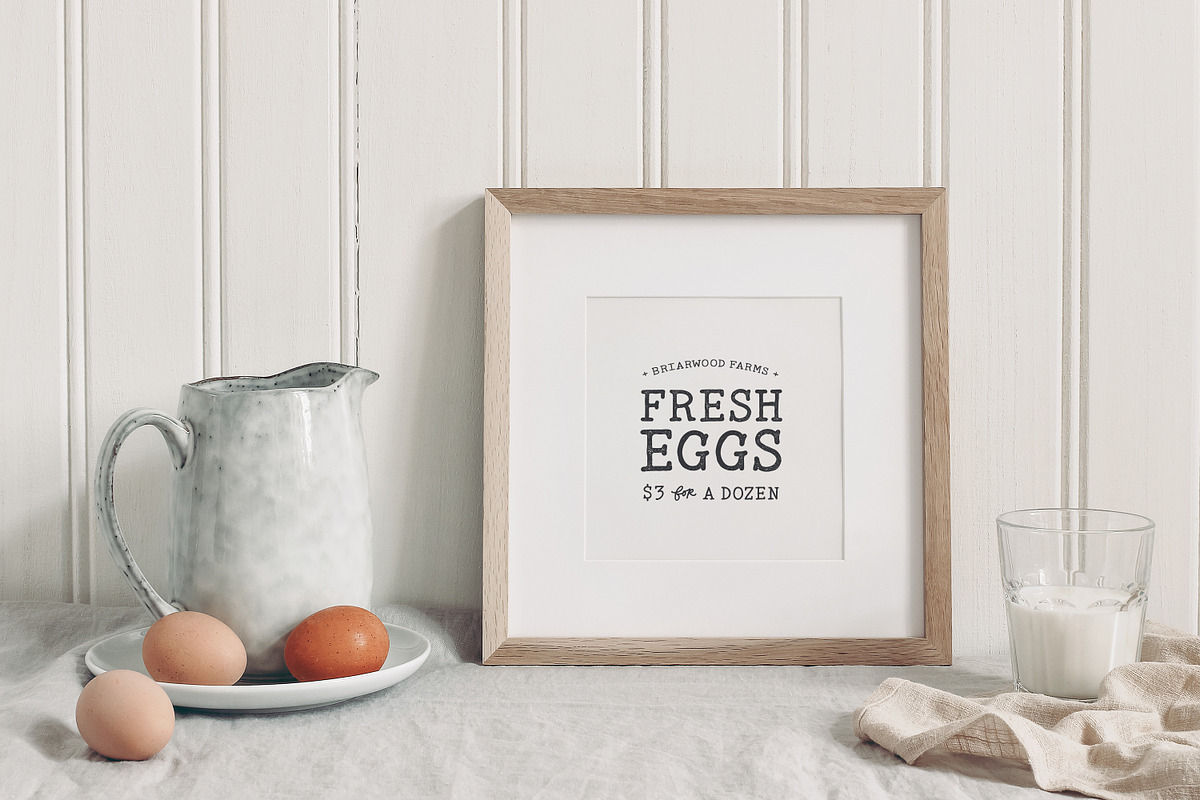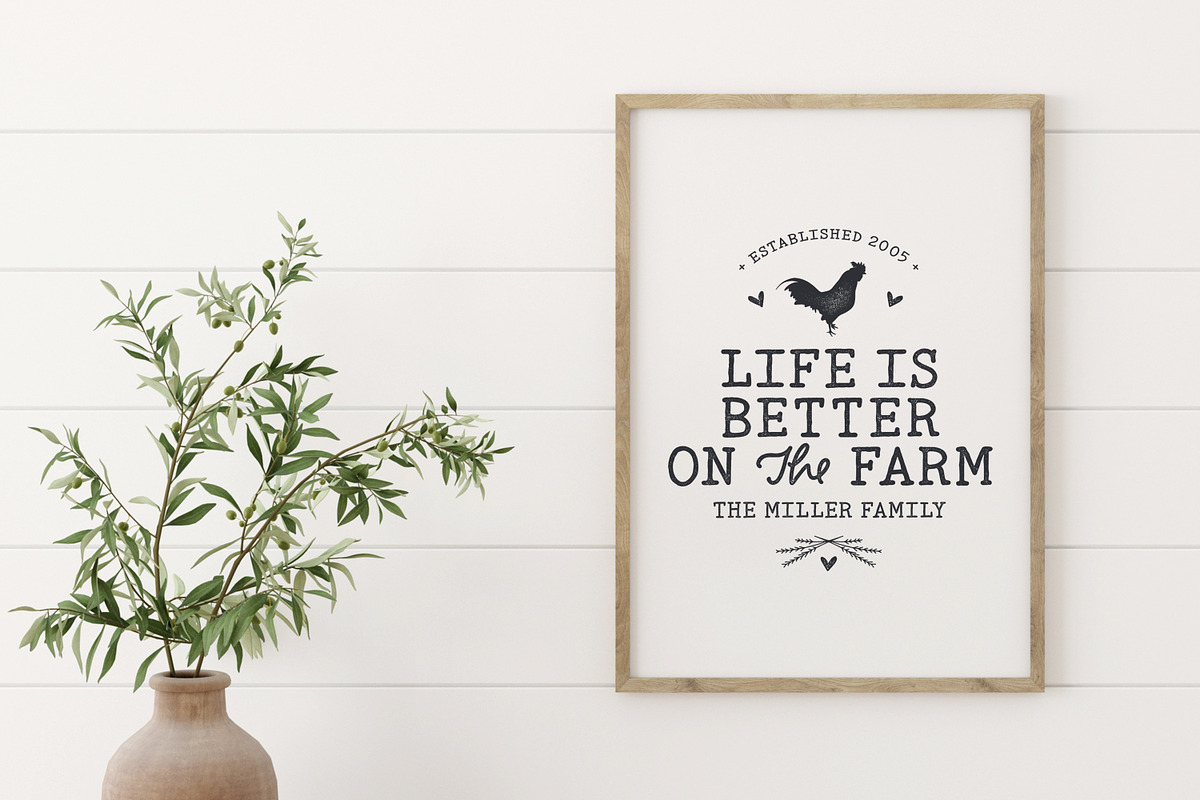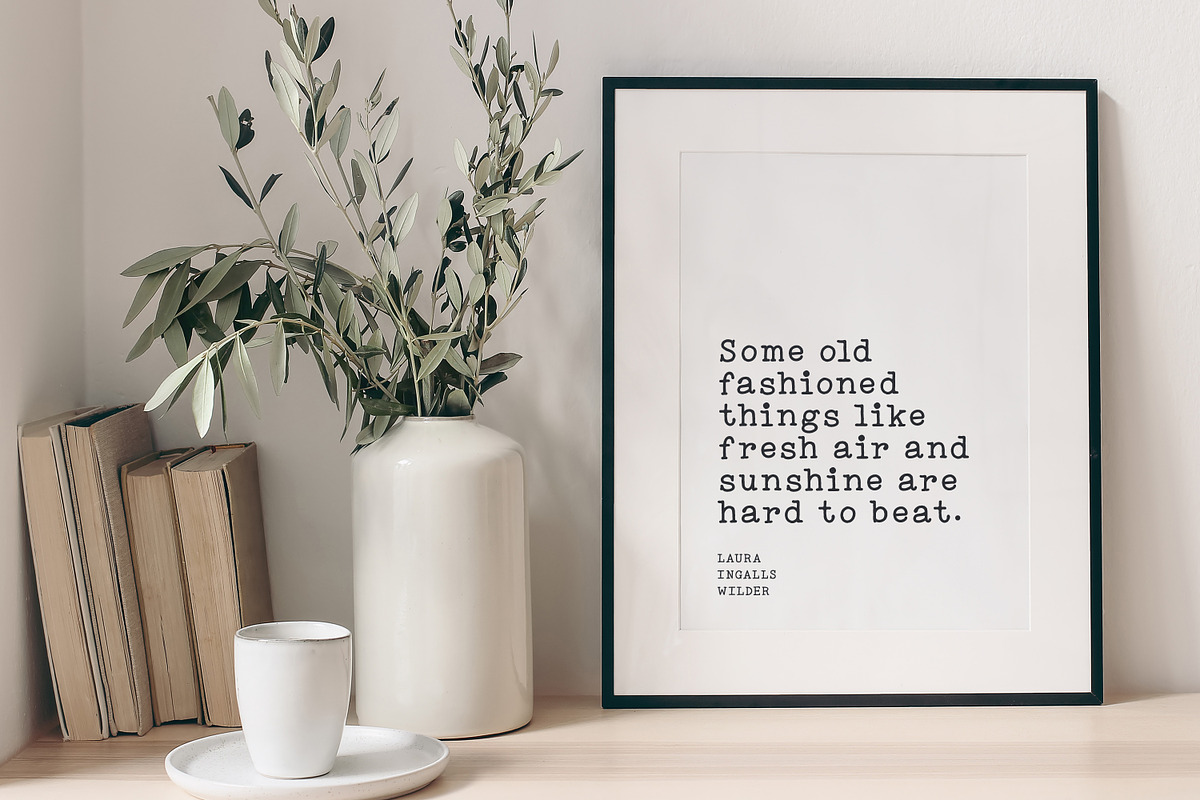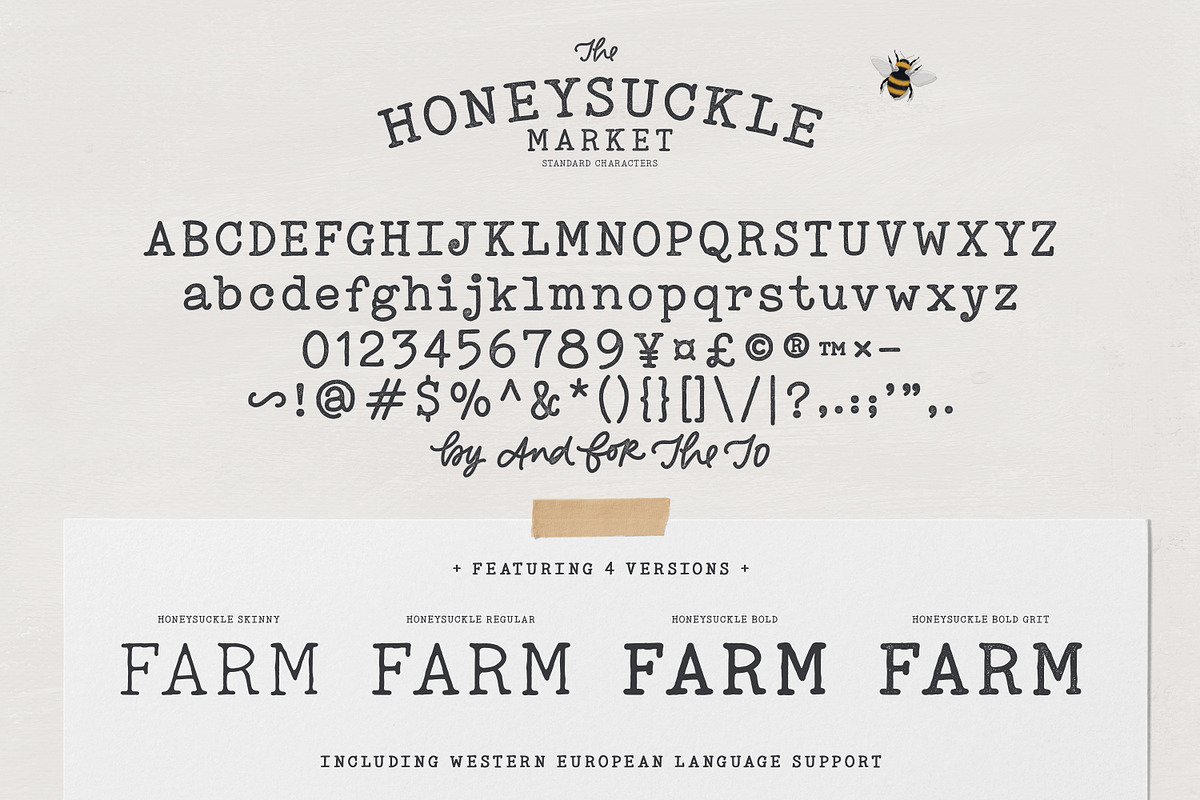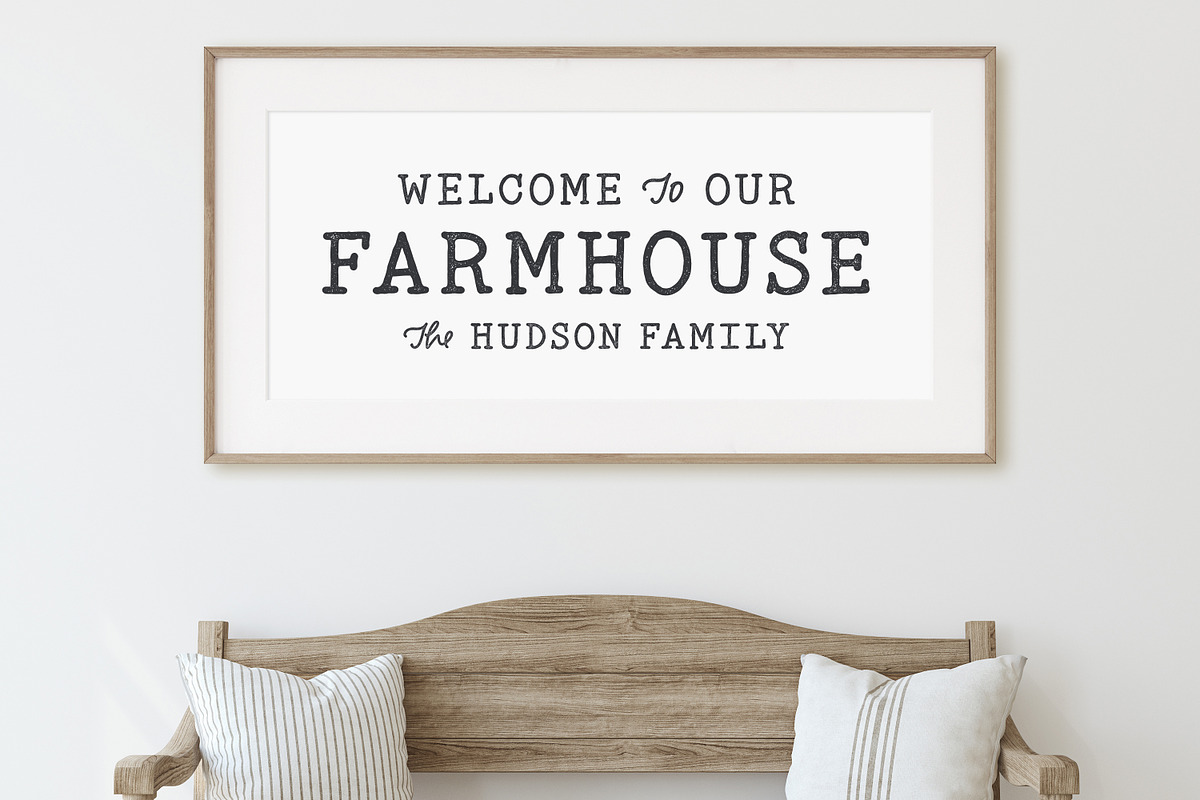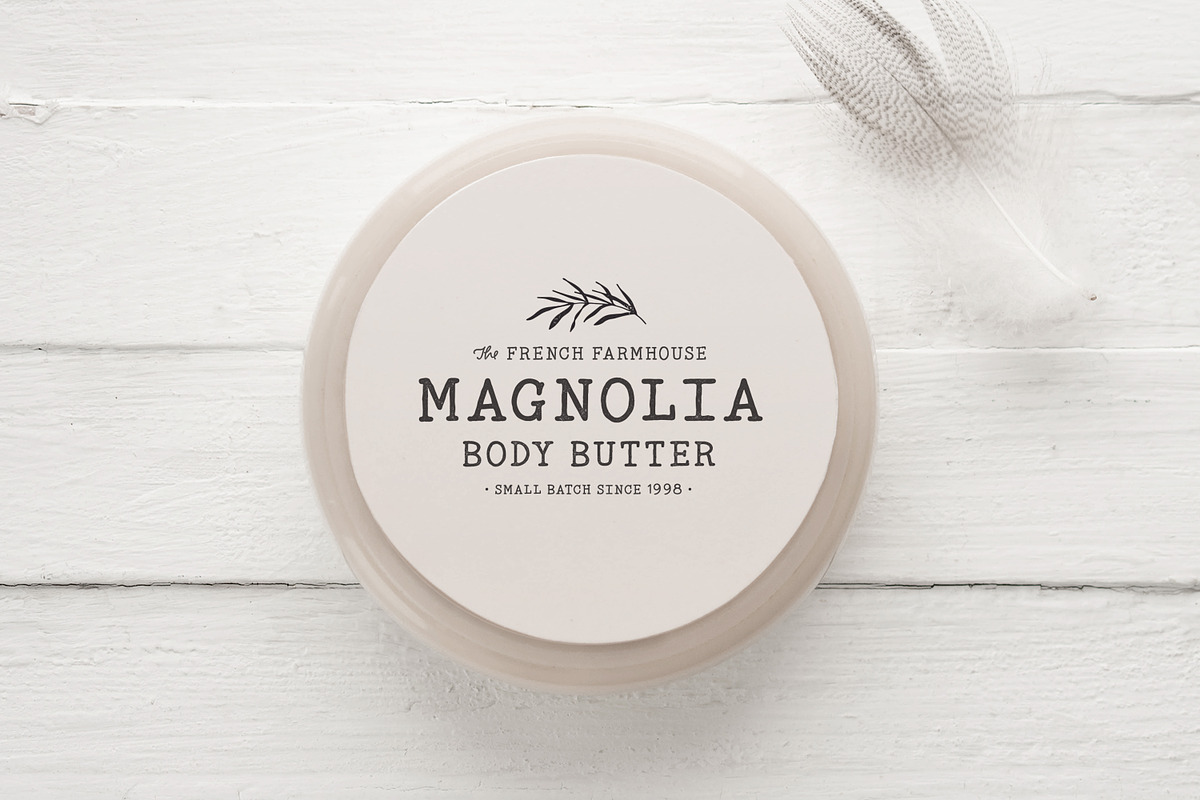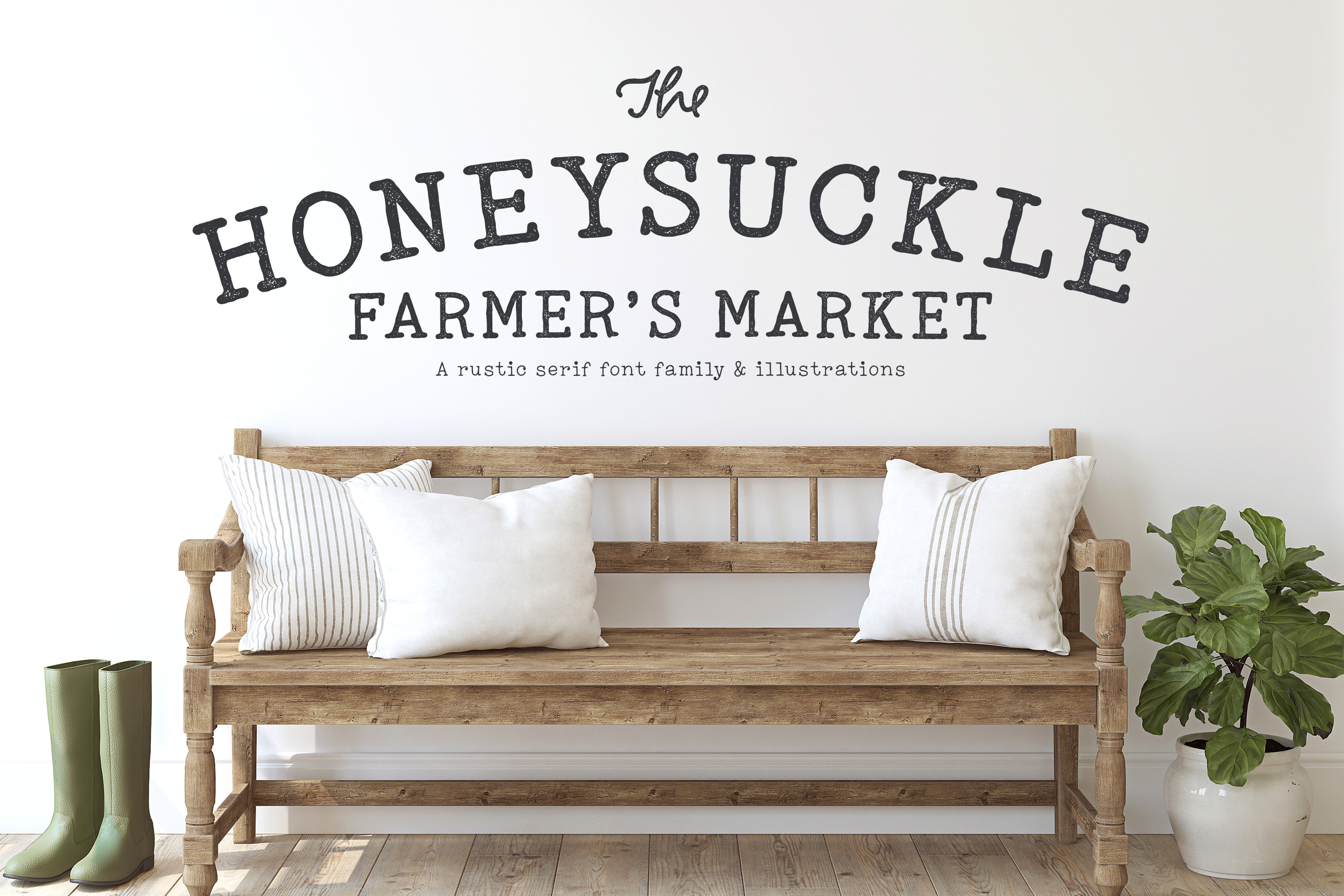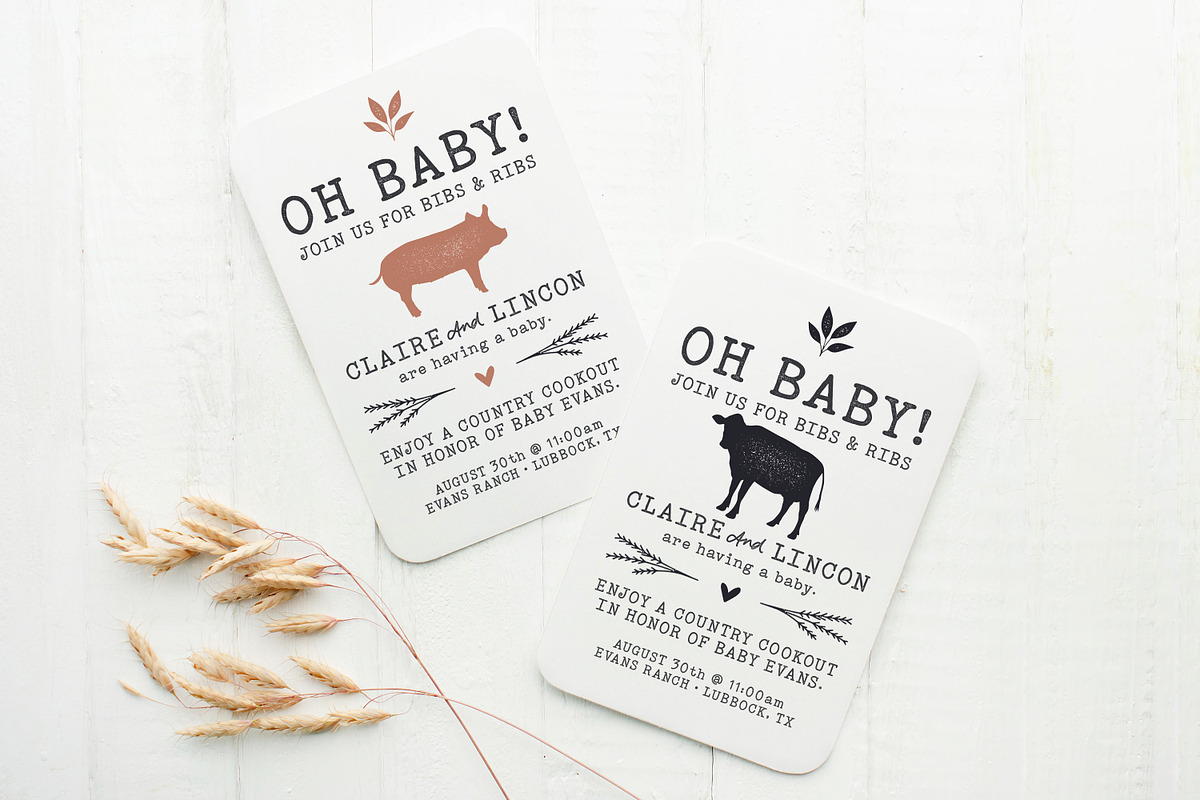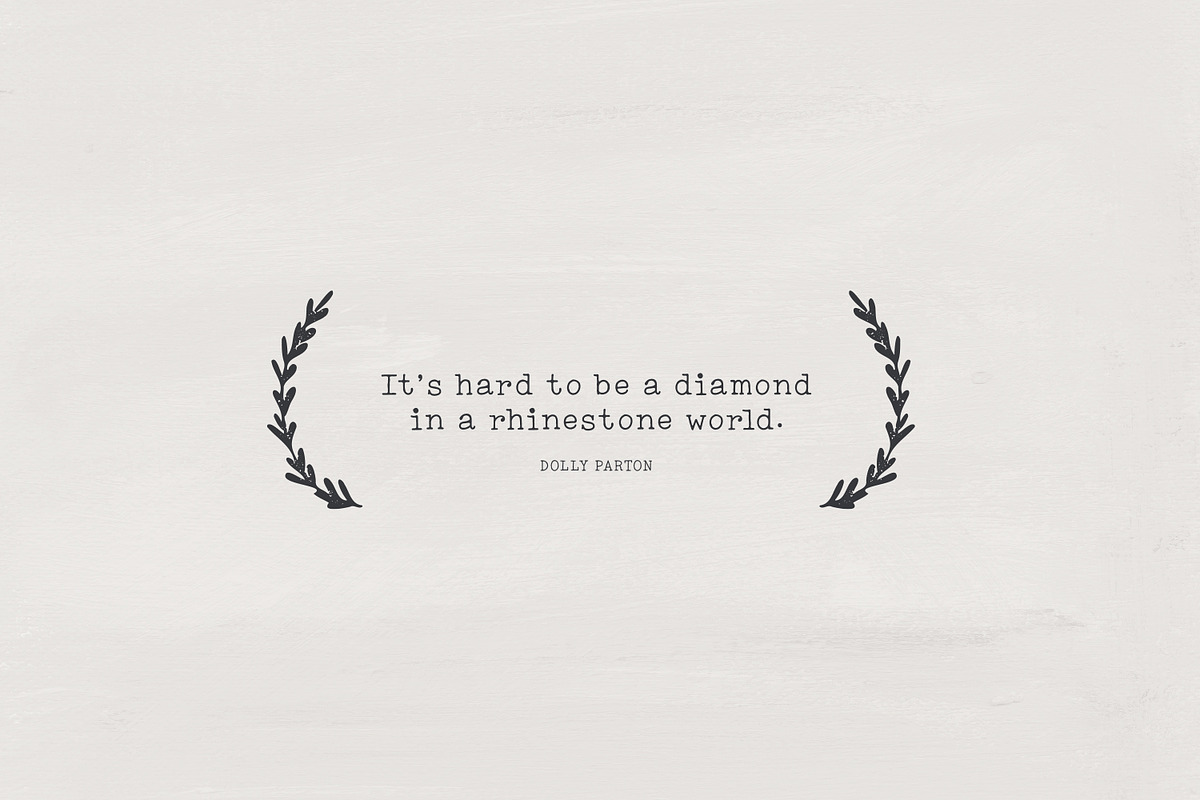
Honeysuckle Market Fonts + Elements
I’m a total country girl at heart, and I just love all things FARMHOUSE! 🐄🥕🍎🐖 So, I figured it was time for another round of country charm. Presenting Honeysuckle Market - a classic, typewriter font in 3 weights, including a textured version, plus 55 hand-drawn vectors, and 15 full-color country garden icons (with 10 additional MYSTERY BONUS icons).
Combine the graphics and fonts to create super cute farmhouse logos, branding, stationary, tumblers, signage, gift tags, apparel, pillows, mugs and so much more!
Honeysuckle Market Regular (OTF) - A trendy, classic typewriter font built for legibility and streamlined typography.
Honeysuckle Market Skinny (OTF) - A thin version for delicate designs. This type looks lovely on signage and quotes.
Honeysuckle Market Bold (OTF) - A weighted version for more dramatic lettering.
Honeysuckle Market Bold Grit (OTF) - A textured version for a rustic flair.
Honeysuckle Hand-Illustrated Vectors (AI & EPS) - 55 BRAND NEW farmhouse elements in two versions. I went ahead and added some rustic texture, but wanted to make sure you had some smooth versions to fall back on. So, now you get both versions. (Sorry no PNGS. These really need to be opened in Illustrator or Inkscape, so you can separate, size and colorize the graphics).
Honeysuckle Market Country Garden Icons (PNG) - 15 full-color, hand-drawn logo icons. (Butterflies & Bee are 300DPI (4x4 in). Florals are 300DPI (2x2 in).)